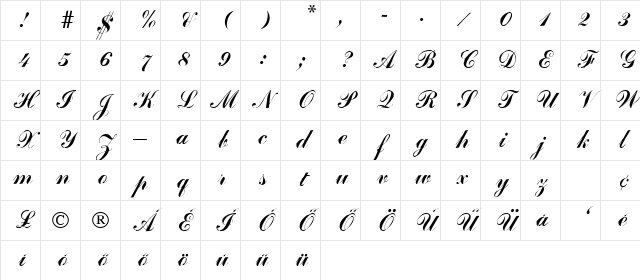
Complete Arenski-HU Medium glyph index. Displaying only characters natively supported by Arenski-HU Medium font.
Arenski-HU is a composed and adaptable typeface that performs quietly and consistently across a wide range of design contexts.